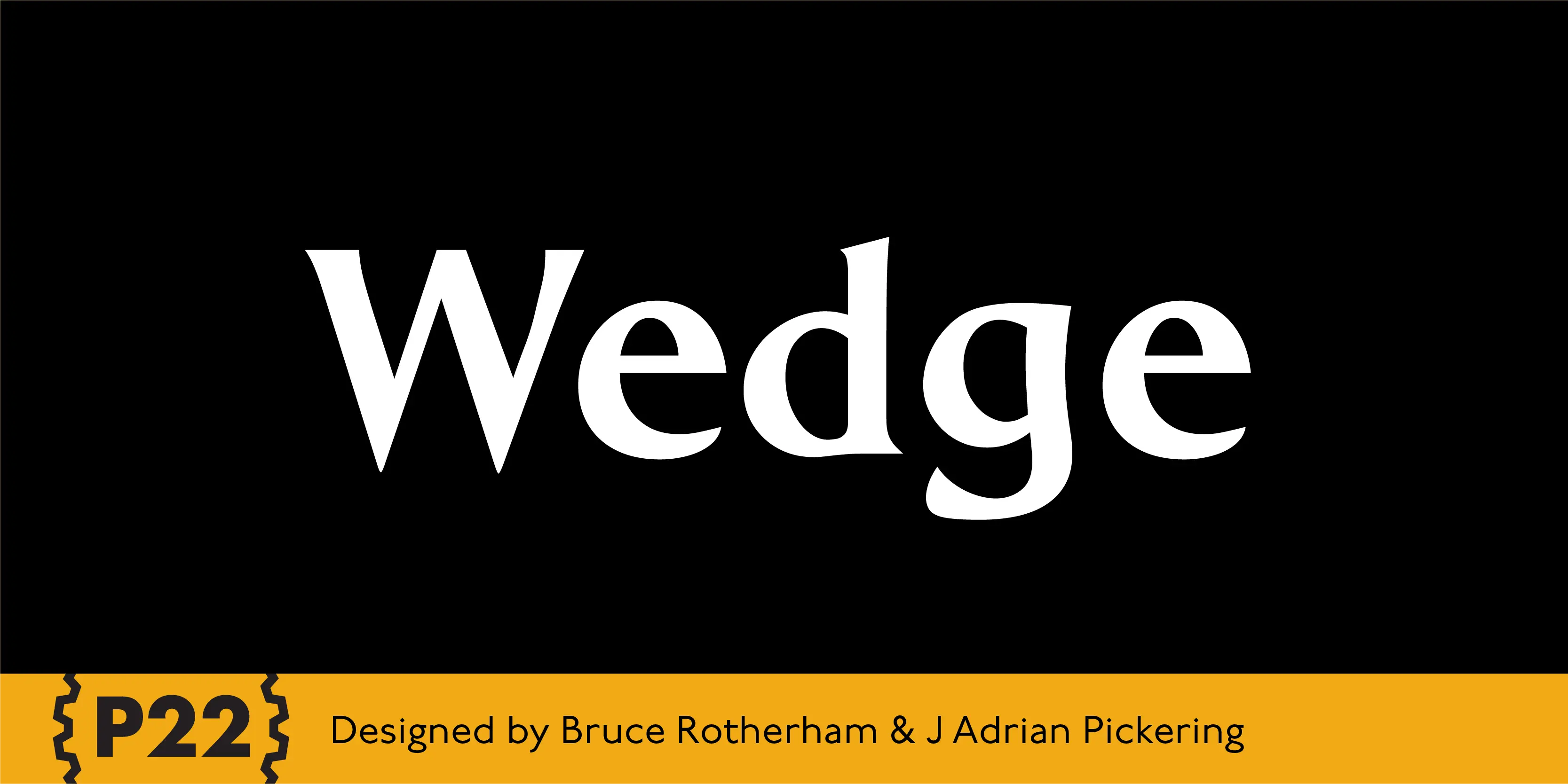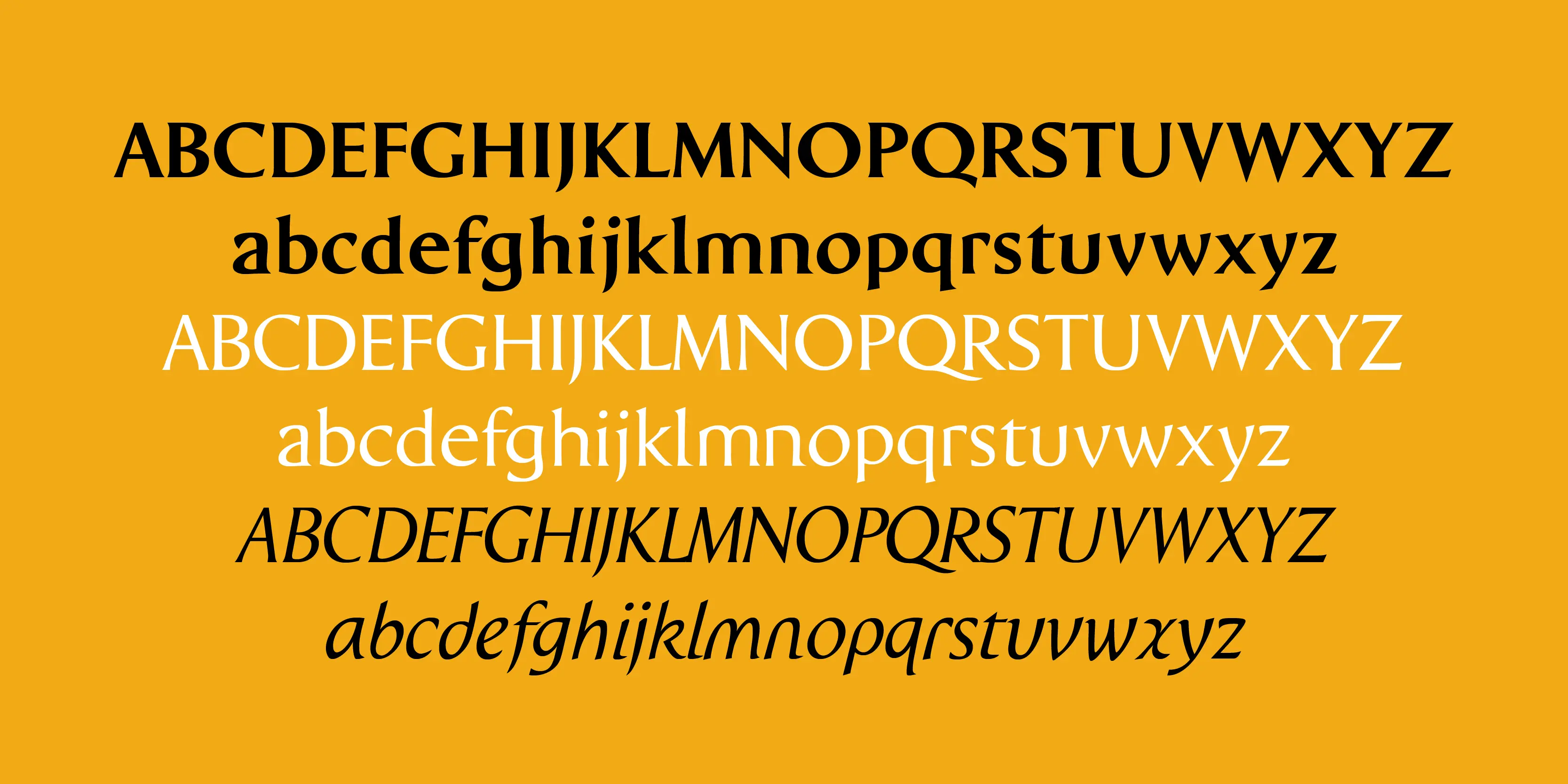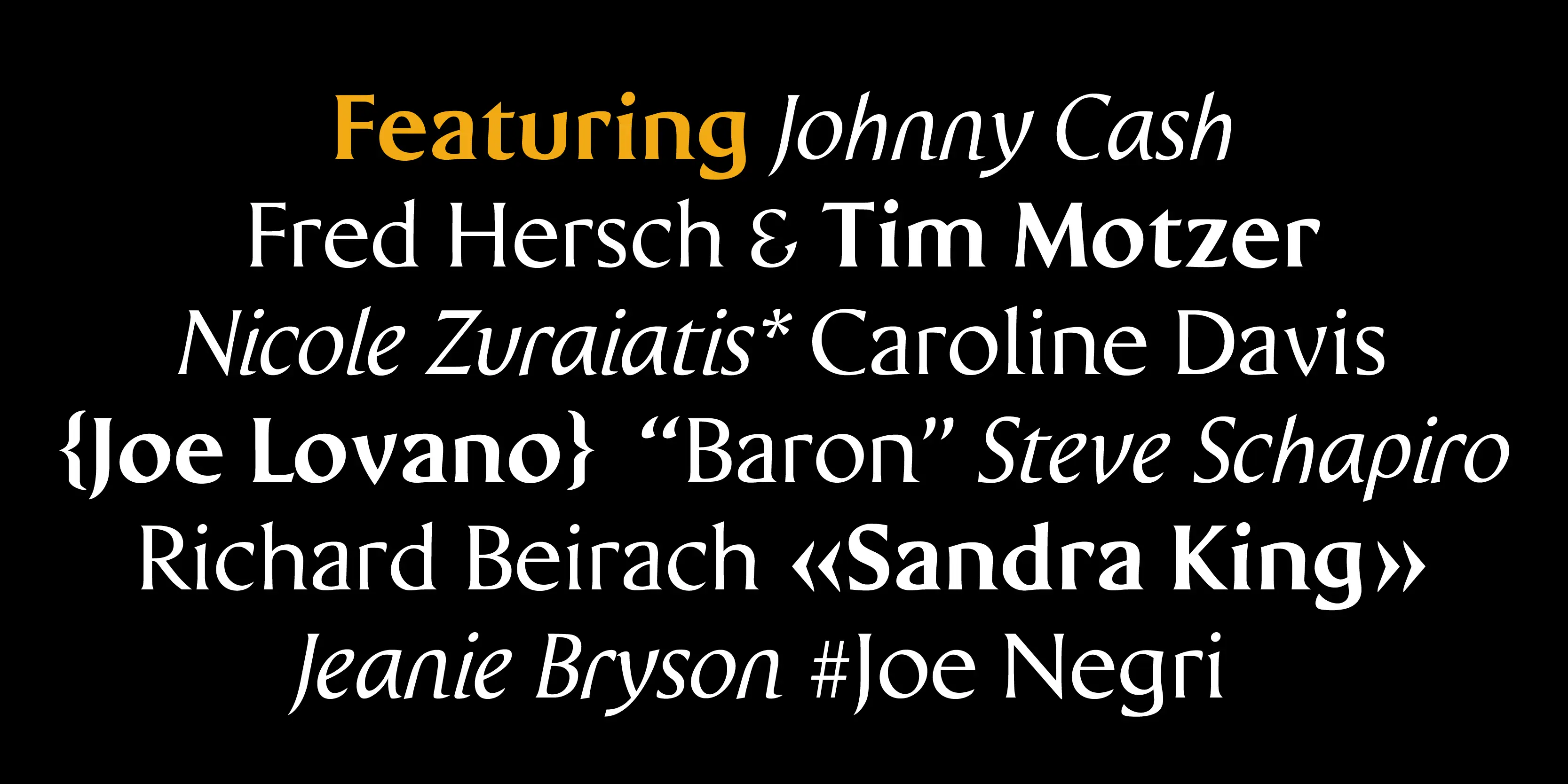
Wedge Font Family
Wedge
Wedge’ is the outcome of a search for the essence of a formal alphabet for text — for 26 letters of the simplest form consistent with ease of reading. Noted New Zealand architect Bruce Rotherham (1926–2004) was inspired by Herbert Bayer’s ‘universal alphabet’ created at the Bauhaus in 1927. While he admired Bayer’s pure geometry, Rotherham felt it was ‘virtually unreadable’. The Bauhaus-inspired inclination for architectural publications to use sans serif faces provoked Rotherham to consider how a readable Roman book face might be approached using some of Bayer’s same principles of simplification, but also retracing the evolution and use of the Roman form in an analytic manner. The Wedge alphabet was started in 1947 when Rotherham was an architecture student at the University of Auckland. Picked up again in 1958 with some promise, but ultimately, it was shelved for some 30 years and reworked digitally in the early 1990s. Over sixty years after it was first conceived, Wedge is now commercially available from P22.